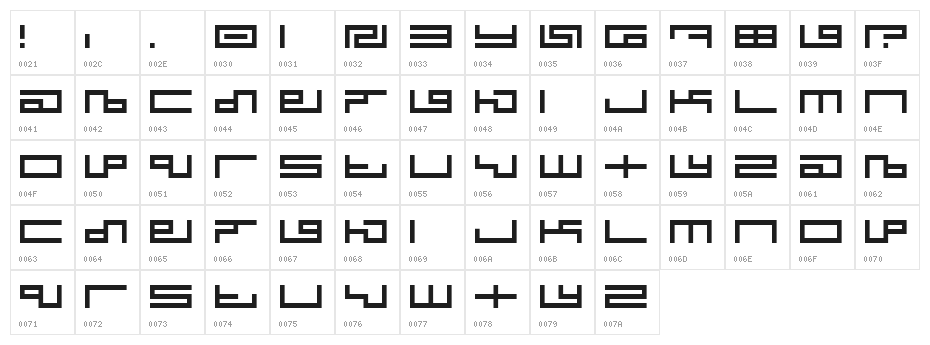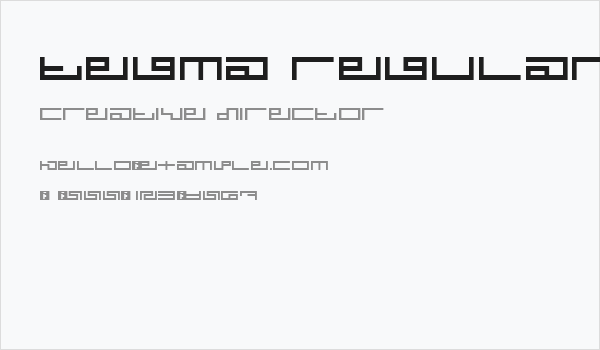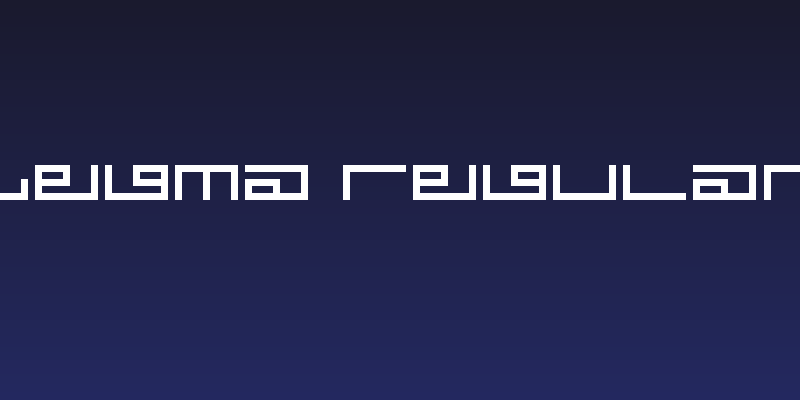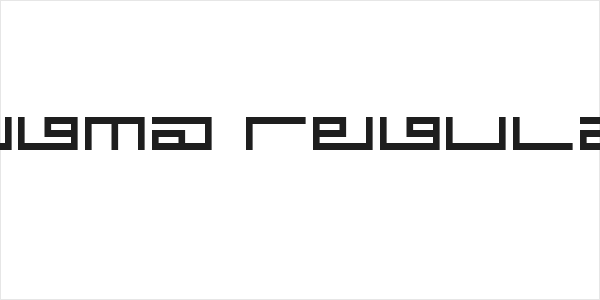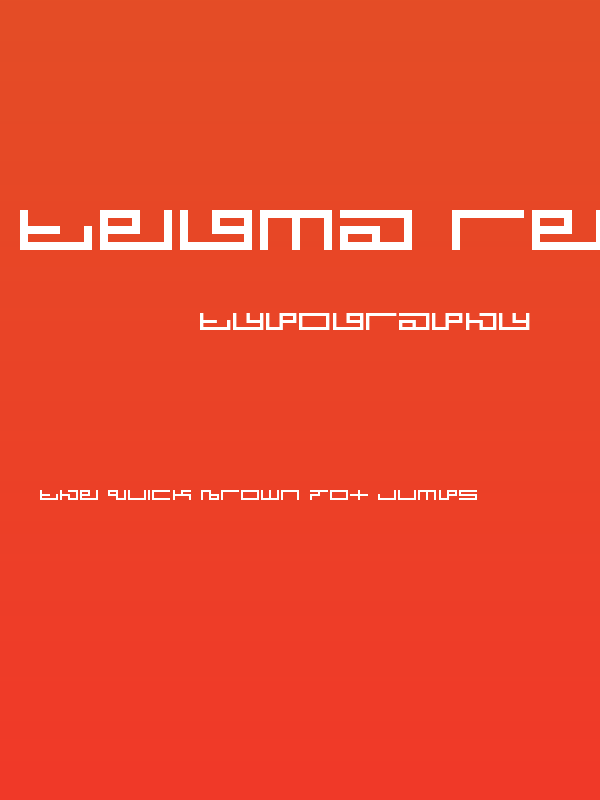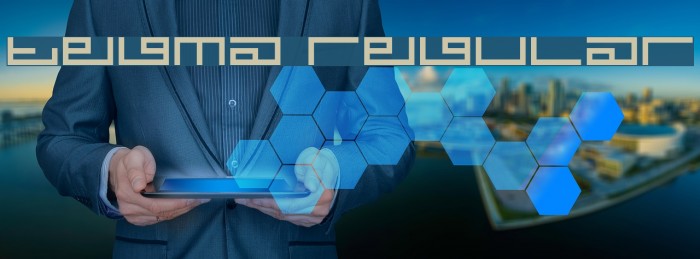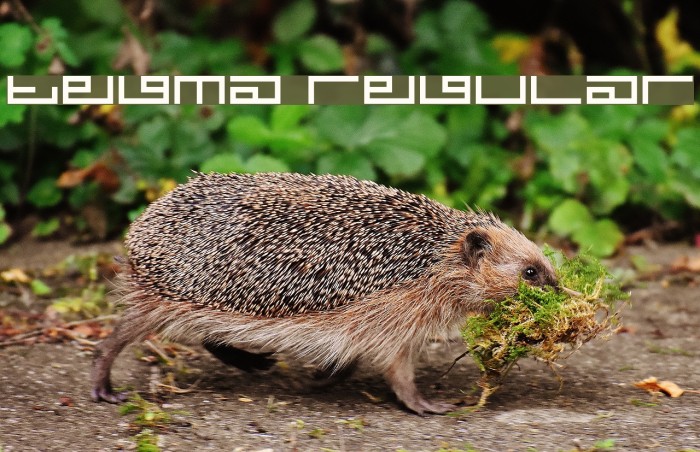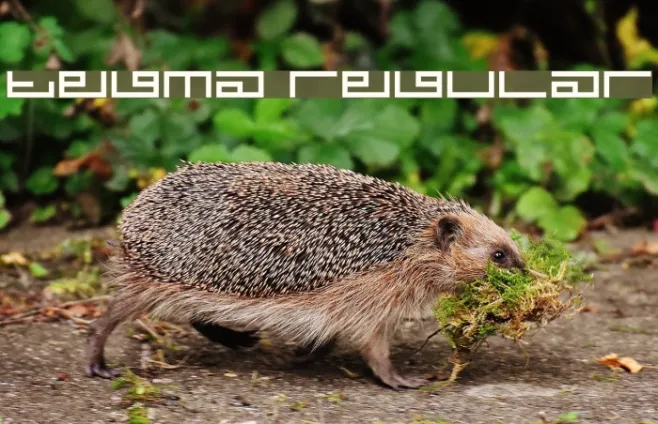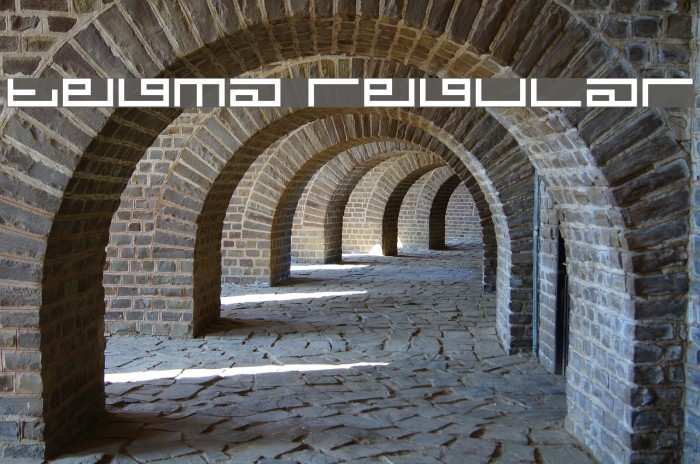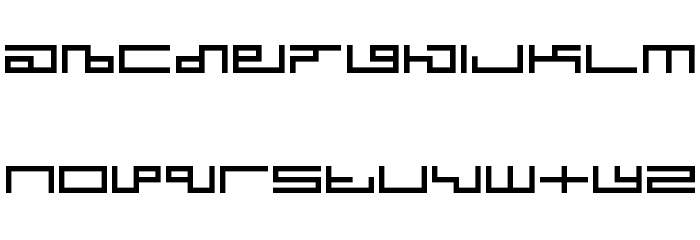
Tegma Regular Font
Tegma Regular Description
This font features a geometric and futuristic design, characterized by its angular and block-like letterforms. The uppercase and lowercase letters maintain a consistent height, creating a uniform appearance. The numerals and special characters follow the same angular style, enhancing the overall cohesive look. The font's design is reminiscent of digital or technological themes, making it suitable for modern and innovative projects. Its distinct style ensures high readability while maintaining a unique aesthetic.
| Proposed Projects | Ideal for tech branding, digital interfaces, video game titles, and futuristic-themed posters. |